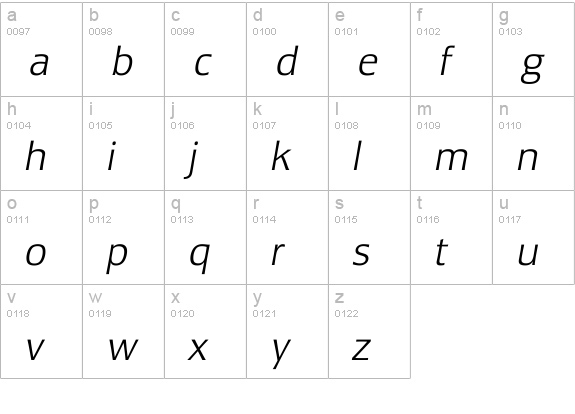
LesmoreLightItalic Font Details
LesmoreLightItalic is a stunningly elegant font that exudes sophistication and grace. Its delicate and flowing letterforms are imbued with a sense of timeless beauty, making it the perfect choice for projects that require a touch of class and refinement. This font is characterized by its slender and elongated strokes, which create a sense of lightness and elegance. The gentle slant of the italicized letters adds a touch of dynamism and flair, making each word come alive on the page. LesmoreLightItalic is the epitome of effortless style, effortlessly combining traditional elements with a modern twist. The versatility of LesmoreLightItalic makes it suitable for a wide range of applications. Whether you are designing a logo, creating an invitation, or crafting a magazine layout, this font will elevate your work to new heights. Its clean and legible letterforms ensure that your message is communicated with clarity and precision. One of the best things about LesmoreLightItalic is that it is freely available to download at FontsMarket.com. This means that you can enjoy all the beauty and elegance of this font without having to spend a penny. Simply head over to FontsMarket.com, and with just a few clicks, LesmoreLightItalic will be yours to use in all your creative endeavors. So why wait? Download LesmoreLightItalic today and add a touch of sophistication to your designs. Let this font elevate your work and captivate your audience with its timeless charm.